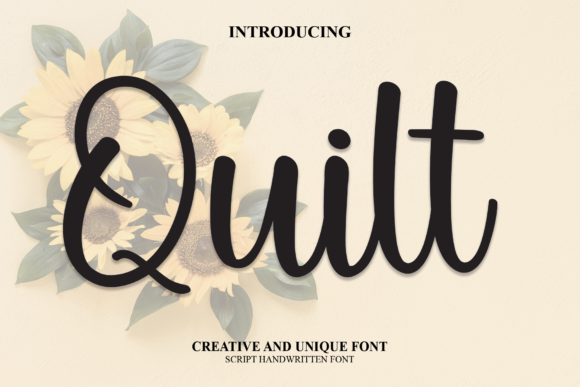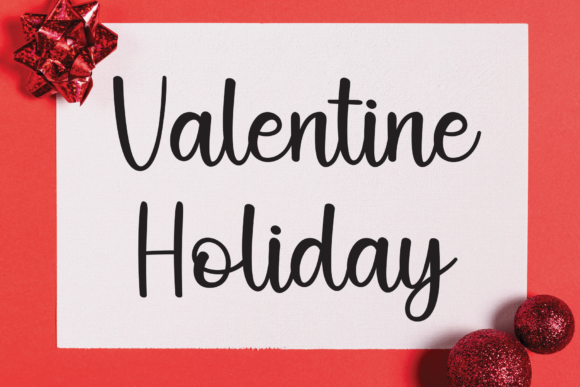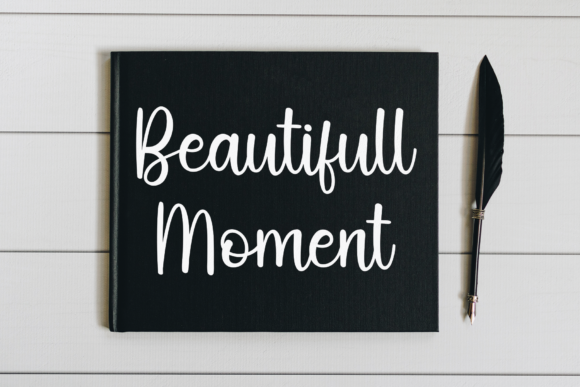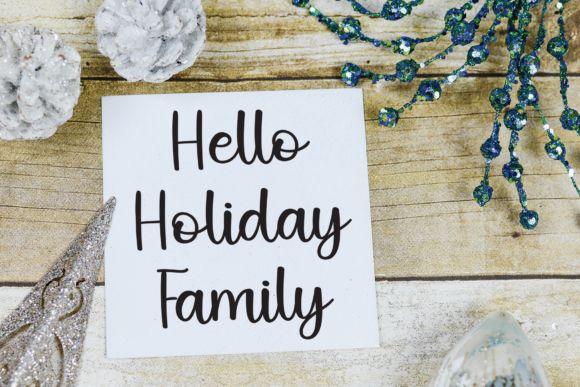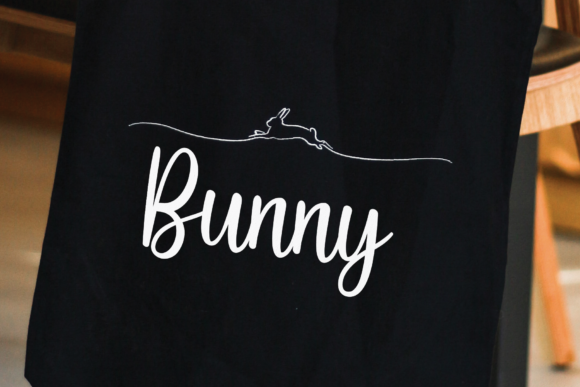
Quilt Font
About Quilt Font
This exquisite script font boasts a simple and thin design, radiating an understated elegance that is sure to captivate. Its ravishing style invites you to immerse yourself in its aesthetic charm, making it the perfect choice for crafting stunning wedding invitations, creating beautiful stationary art, curating engaging social media posts, and a myriad of other design projects.
The font’s simplicity and thin strokes contribute to its overall sophistication, providing a clean and modern look that resonates with contemporary design trends. Its versatile nature makes it an ideal companion for a wide range of creative applications, allowing you to express your artistic vision with finesse.
For wedding invitations, this script font adds a touch of refined beauty, setting the tone for a memorable and stylish celebration. In stationary art, its simplicity ensures a timeless appeal, allowing your creations to exude an air of sophistication. When used in social media posts, the font’s engaging style captivates audiences and enhances the visual impact of your content.
Fall in love with the seamless integration of this script font into your design projects. Its versatility shines through, becoming a key element in creating aesthetically pleasing and visually compelling materials. Whether you’re designing for formal events, artistic endeavors, or digital platforms, this font is poised to elevate your work with its ravishing style.
In summary, this simple and thin script font transcends mere typography; it becomes a design asset that inspires creativity. Immerse yourself in its ravishing style, and let it be the elegant touch that transforms your wedding invitations, stationary art, social media posts, and more into visually stunning expressions of your artistic prowess.